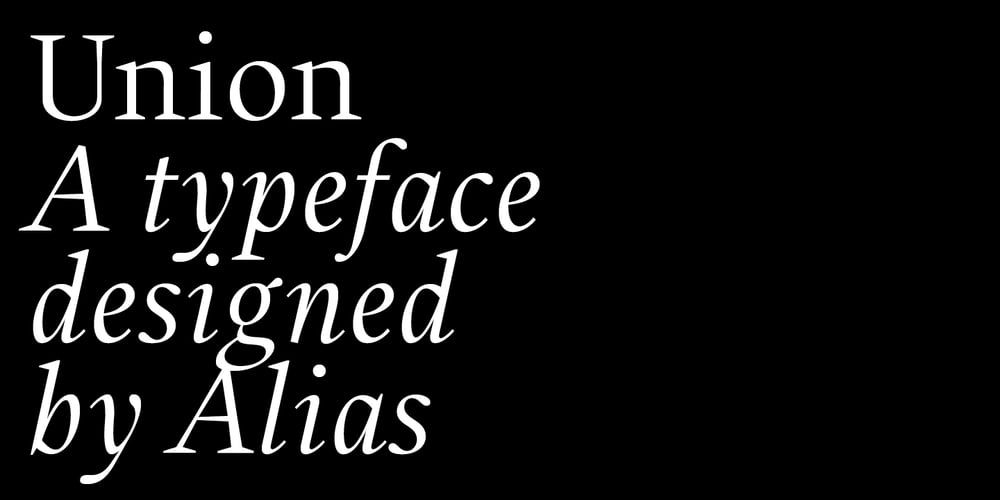
Union Font Family was designed by Gareth Hague and published by Alias Collection. Union contains 12 styles and family package options. A softer, streamlined and more elegant development of the ideas originally explored in Jude. Incised letterforms are now rounder and more intuitive, less geometric. Union is a modern classic‚ typeface, avoiding quirky idiosyncrasies to produce a useable and highly contemporary type.